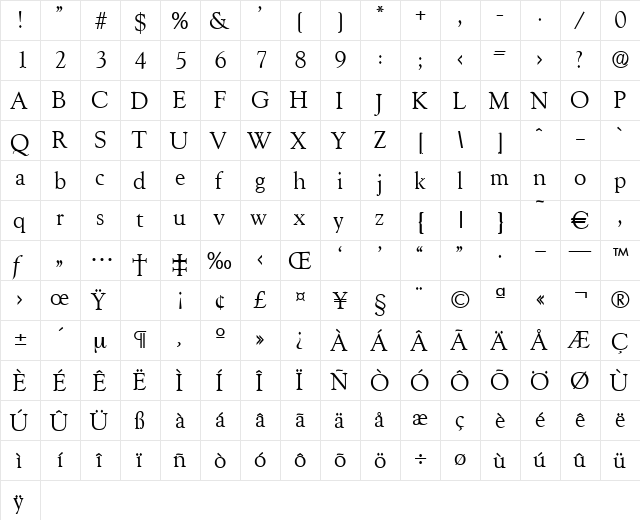
Goudx-Regular Font Preview
Goudx-Regular Regular
Design Context for Goudx-Regular Typeface
Goudx-Regular is a composed and adaptable typeface that performs quietly and consistently across a wide range of design contexts.